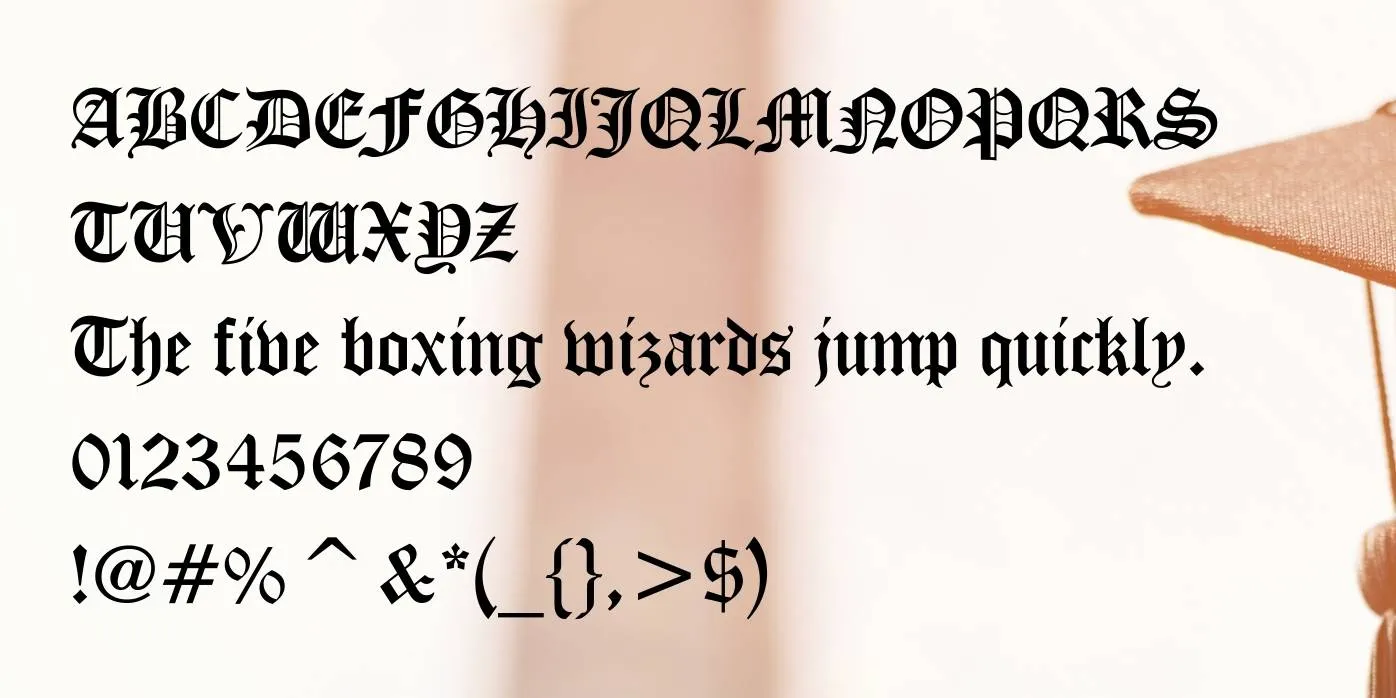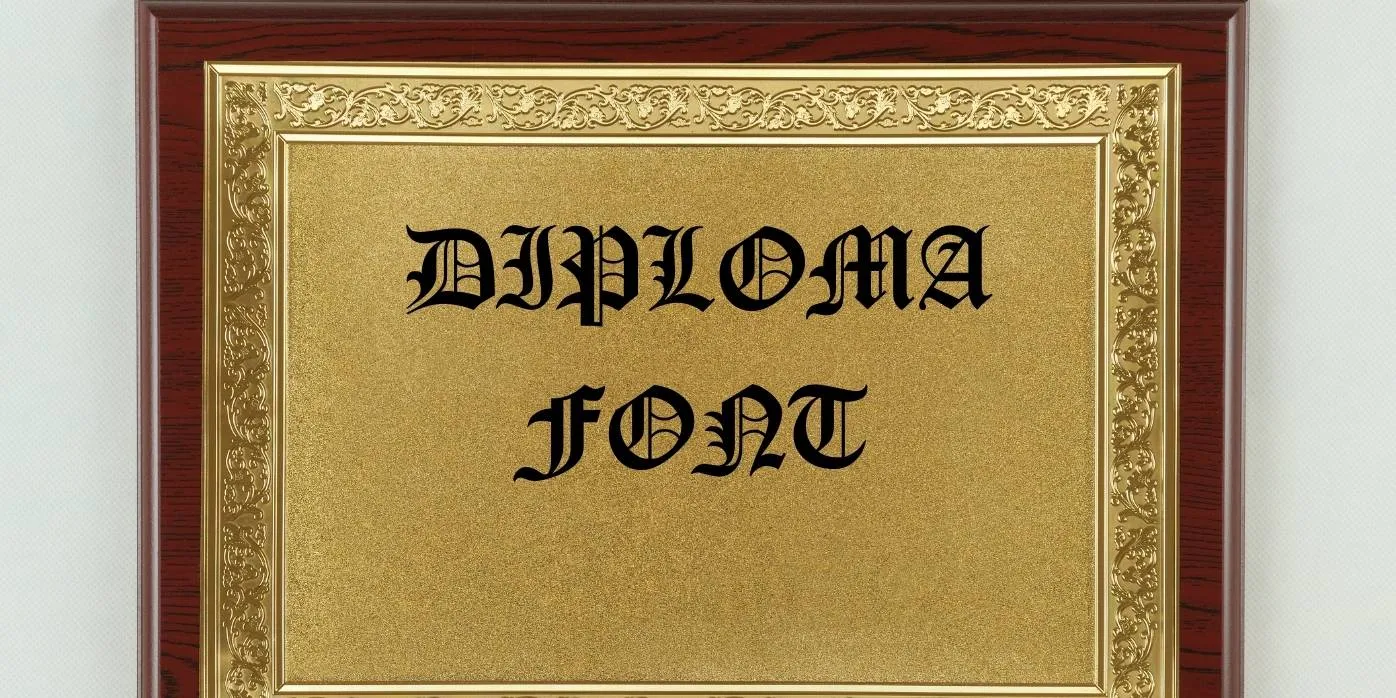
Diploma Font
Diploma font is the most beautiful and luxury shape typeface that belongs to a fancy fonts family. The designer of this typeface is Vincent Connare. It has TTF features and is free for commercial use. The font has beautiful Uppercase and Lowercase Letters, Numbers and Numerals, Swashes, and unique symbols as well.